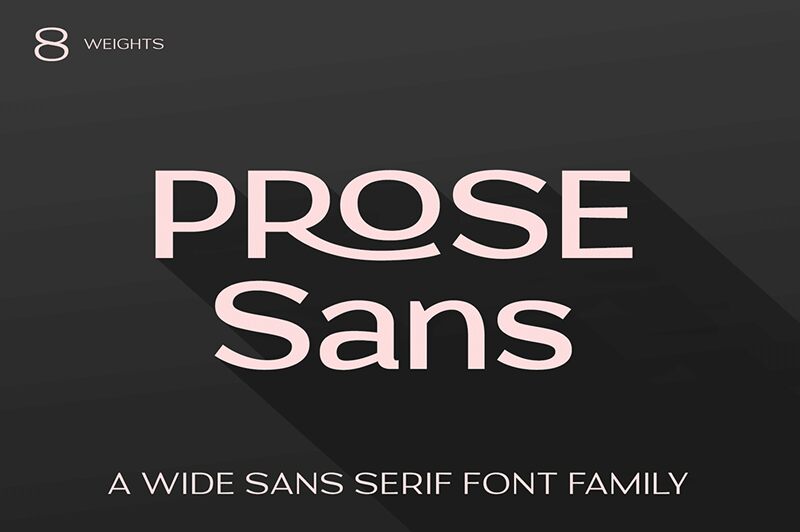
Prose Sans Demo Medium
Prose Sans Medium, crafted by Ayca Atalay, is a standout member of the Prose Sans family with its expanded presence that commands attention. The sans serif style exudes modernity and clarity, making it not only pleasing to the eye but also highly readable. Its generous width gives text a breath of fresh air, setting it apart from more cramped designs.
This font's versatility shines across a spectrum of applications: from bold marketing materials and eye-catching headlines to user-friendly digital interfaces and elegant editorial layouts. With eight weights at its disposal, Prose Sans Medium offers designers a flexible toolkit for creating nuanced visual hierarchies in both print and digital realms. Whether you're crafting an impactful presentation or designing an approachable brand identity, Prose Sans Medium is poised to convey your message with both style and substance.
Prose Sans | Ayca Atalay | 2022